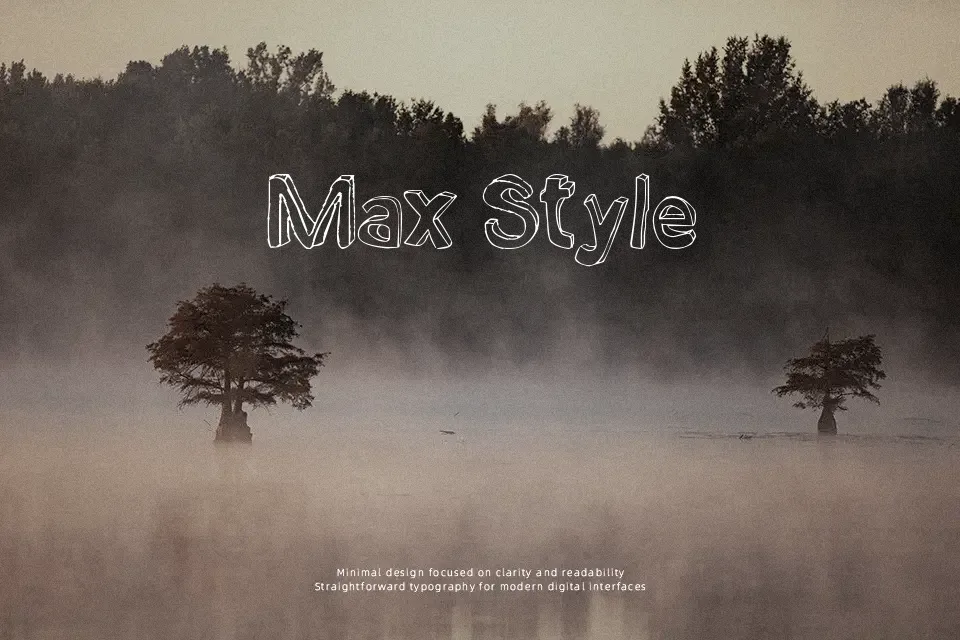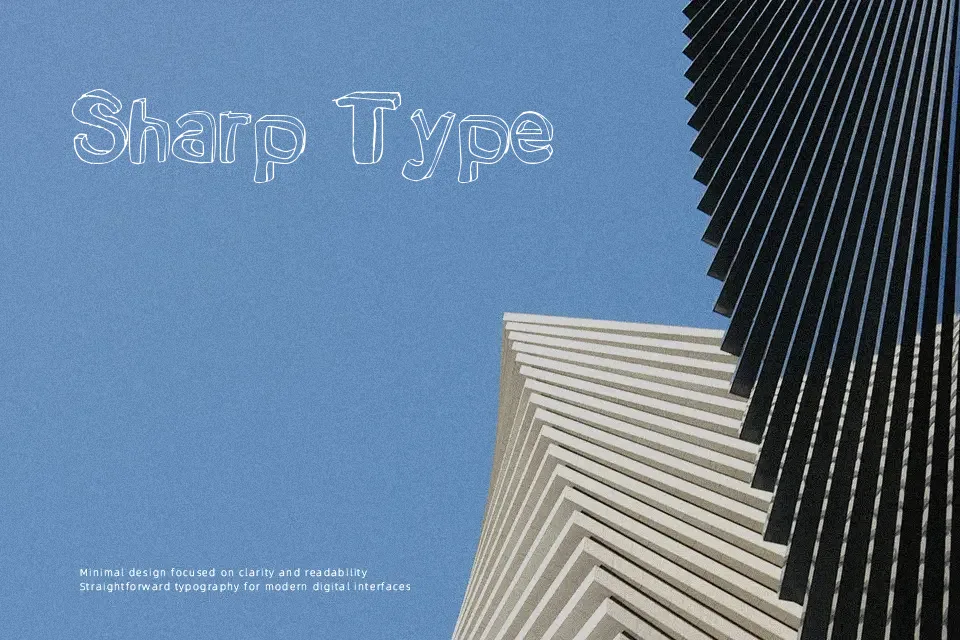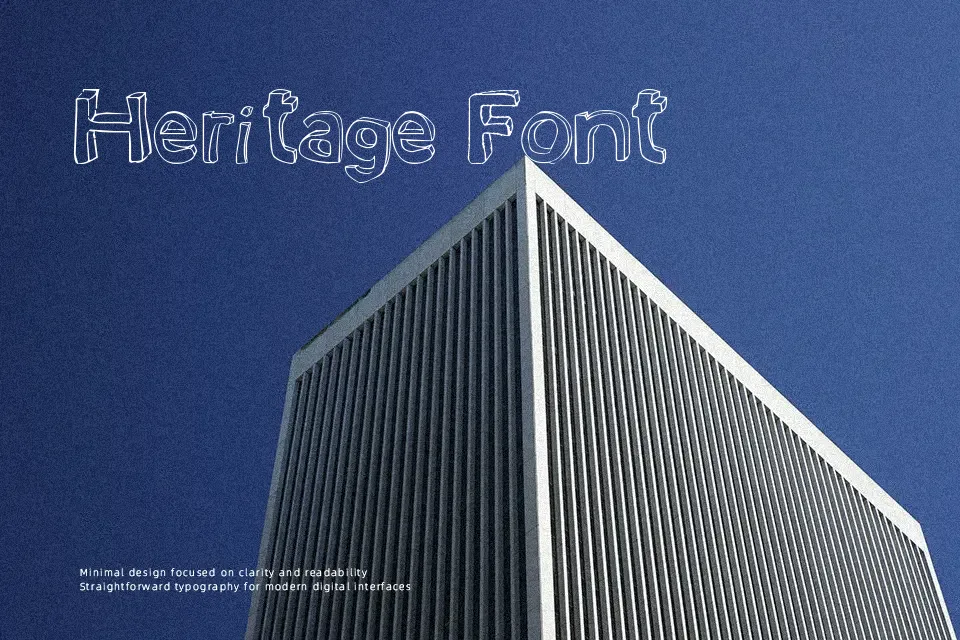
Bobsmade Font Font
Designed by Bobsmade
Bobsmade Font Font has thick, uneven strokes and loose spacing that mimic marker lettering, giving every word a spontaneous, sketchbook energy. The letters lean and wobble slightly, with irregular contours that feel more like illustrated shapes than formal type, so text looks loud and expressive rather than polished. This makes it work nicely on character-driven posters, music or gaming thumbnails, stickers, or packaging where you want a handmade, illustrated voice instead of a corporate tone. On the other hand, longer paragraphs or small captions can quickly become tiring to read, and the casual style can clash with more serious or luxury contexts. If you already use comic or graffiti-inspired display fonts, this one sits somewhere in between: less aggressive than full graffiti, but much more playful than standard comic styles.
short, loud headlines on posters or flyers
youthful branding, stickers, and merch graphics
social media graphics for illustrators or streamers
long paragraphs or small-size body copy
formal, corporate, or luxury branding
interfaces or documents that need clean readability
Perfect for branding, gaming, and music, with a artistic and decorative style.